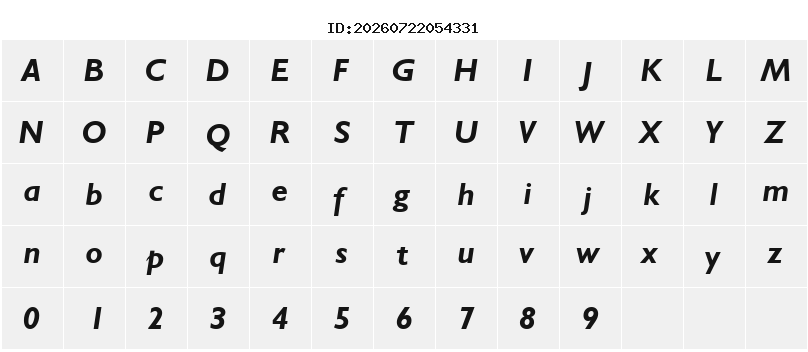
• Font Name: Humanst521 BT
• Font ID: Humanist 521 Bold Italic
• Full Font Name: Humanist 521 Bold Italic BT
• PostScript Name: Humanist521BT-BoldItalic
About Humanst521 BT.ttf
Humanst521 BT.ttf is a modern, elegant sans-serif font designed for ultimate readability and visual harmony. Perfect for branding, headlines, web design, and print materials.